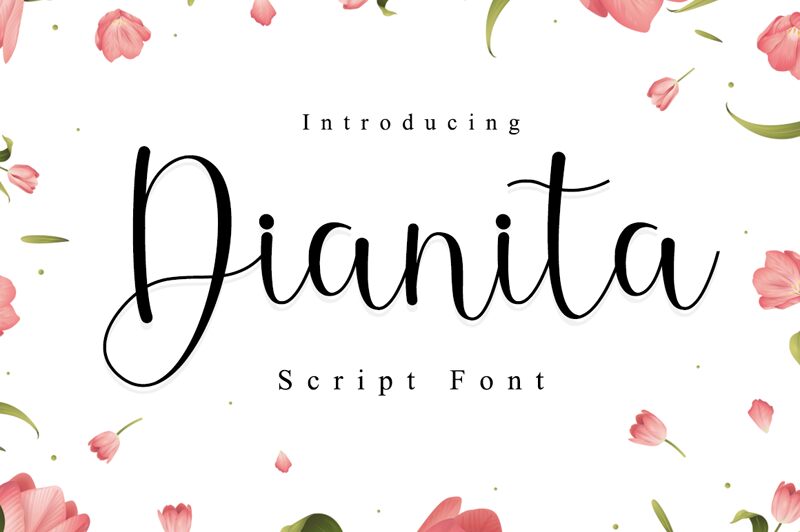
Dianita
Dianita, created by the talented Manjali Studio, is a stunning calligraphy font that adds elegance and sophistication to any project. With its light weight, this font is perfect for creating delicate and feminine designs such as wedding invitations, fashion magazines, or beauty blogs. Its graceful curves and flowing strokes make it an ideal choice for adding a touch of romance to your designs. Whether you're working on branding a luxury event or designing a high-end logo, Dianita's calligraphy style will surely captivate your audience with its timeless charm.